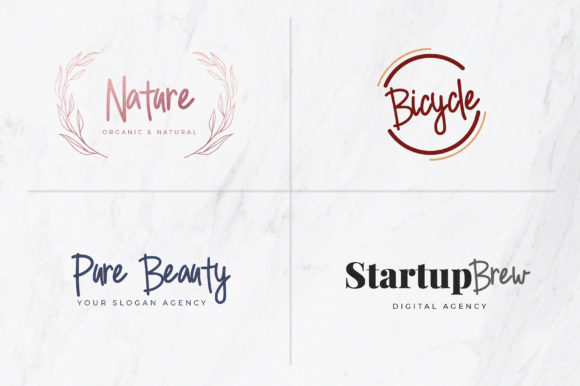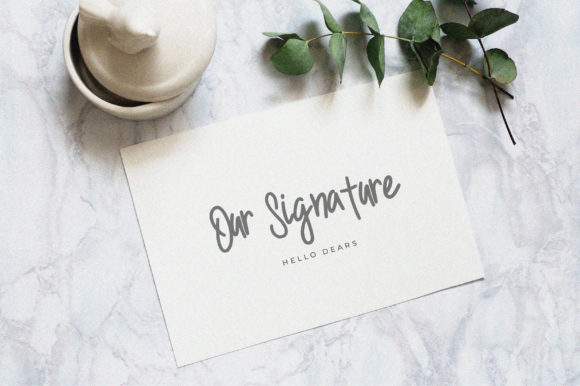
Doelan Font
About Doelan Font
Doelan is a sweet, adaptable and friendly script font. It looks stunning on wedding invitations, thank you cards, quotes, greeting cards, logos, business cards and every other design which needs a customized touch.